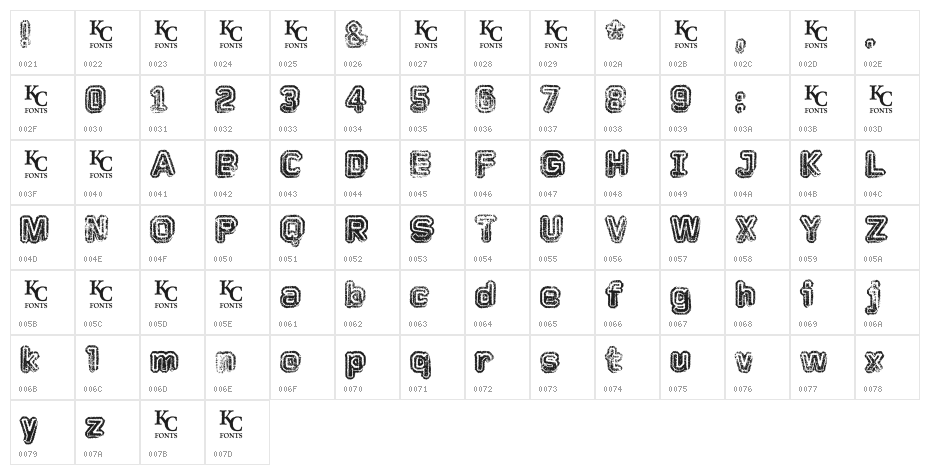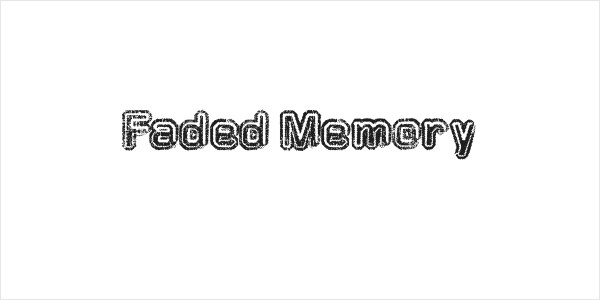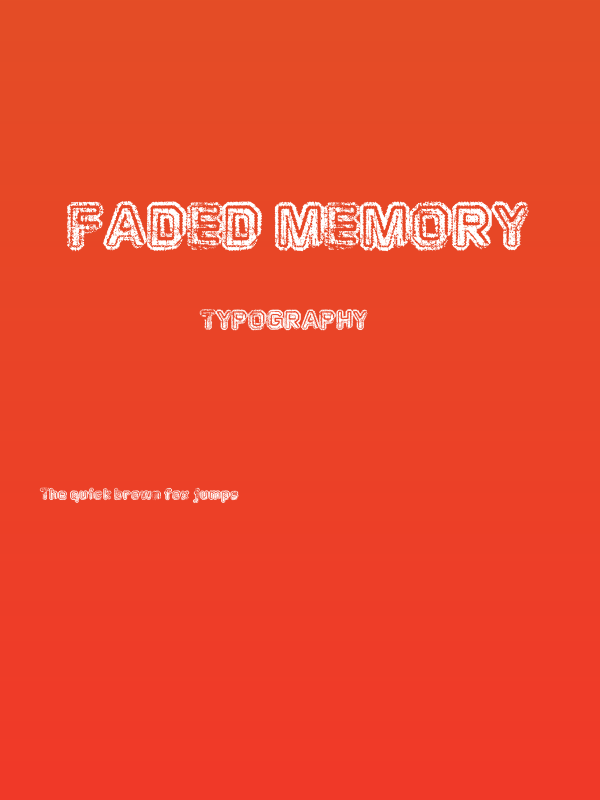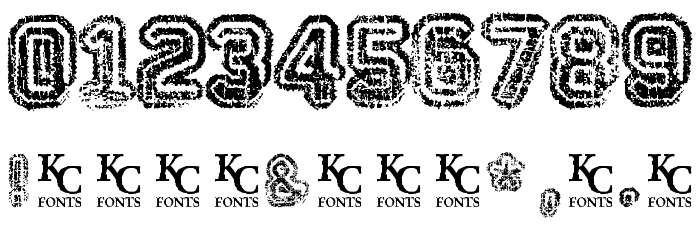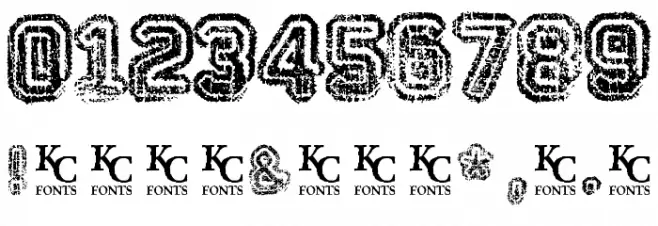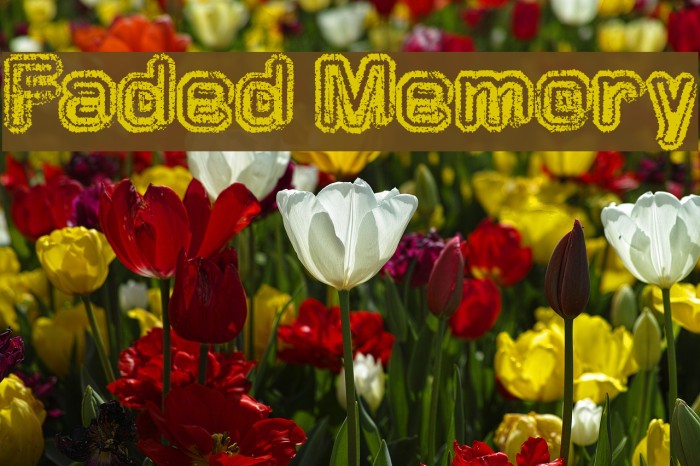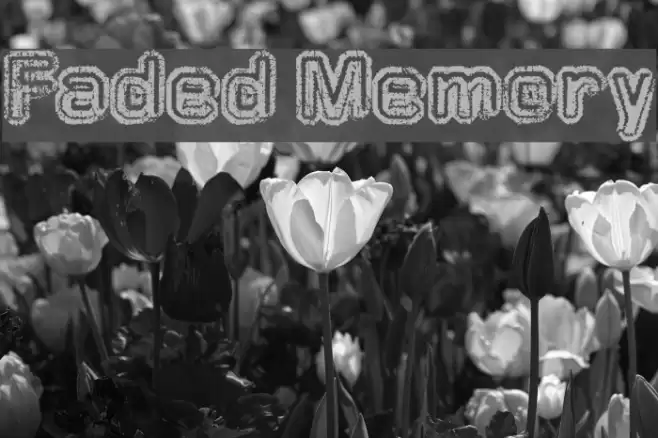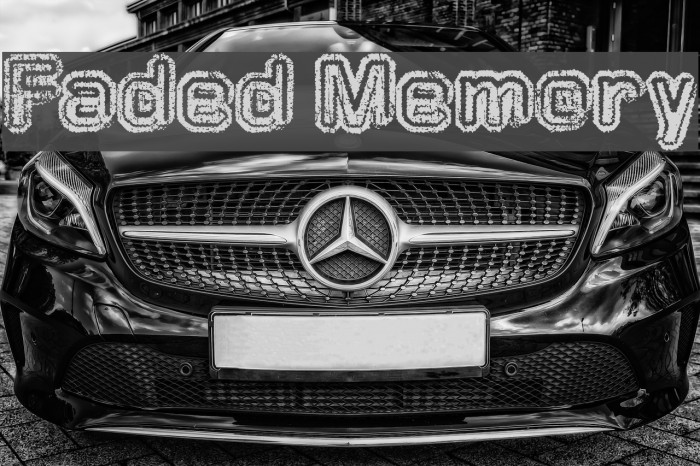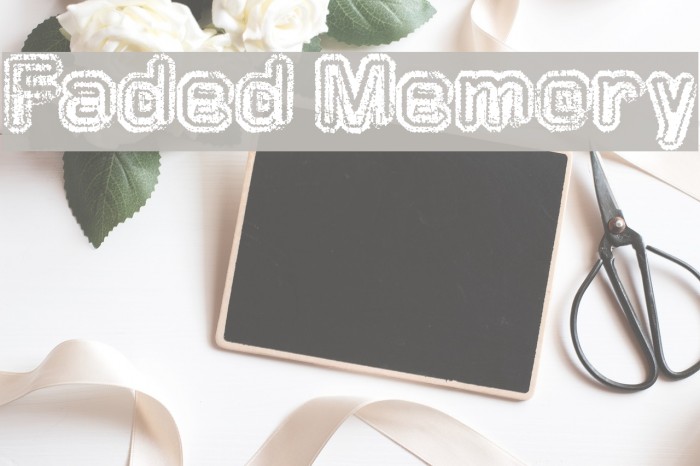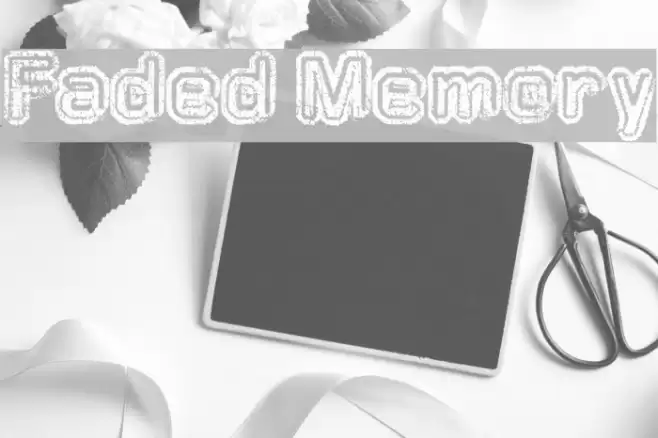
Faded Memory Font
Faded Memory Description
This font features a distressed and textured appearance, giving it a worn and vintage feel. The characters are bold and outlined, with a rough, eroded texture that suggests a sense of age and history. The uppercase and lowercase letters maintain a consistent style, while the numbers and special characters follow the same design principles, ensuring uniformity across all glyphs. This font's unique style makes it stand out, with its bold presence and artistic flair.
| Overall Style | Vintage |
| Proposed Projects | Ideal for projects that require a vintage or retro aesthetic, such as posters, album covers, and branding for rustic or artisanal products. |